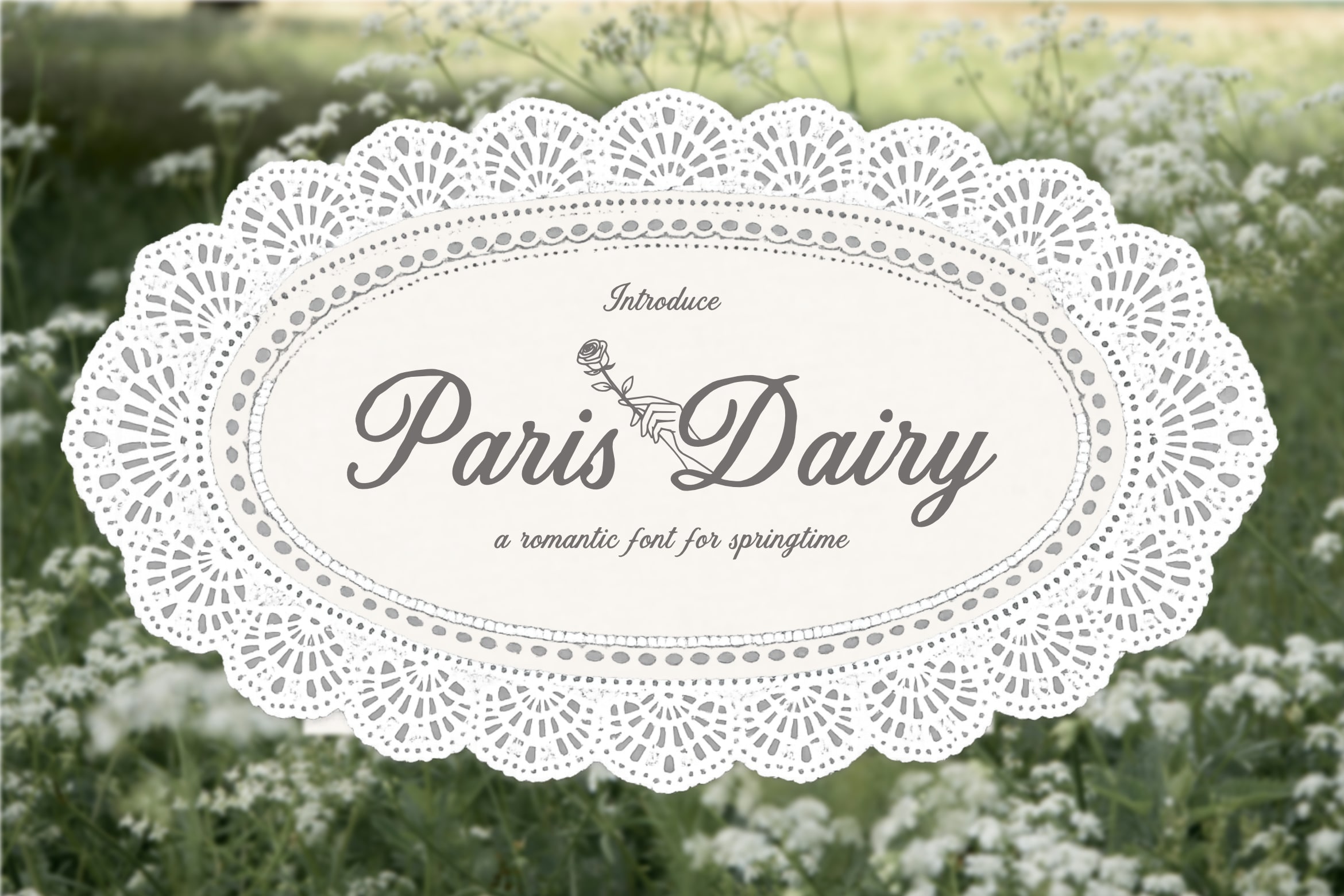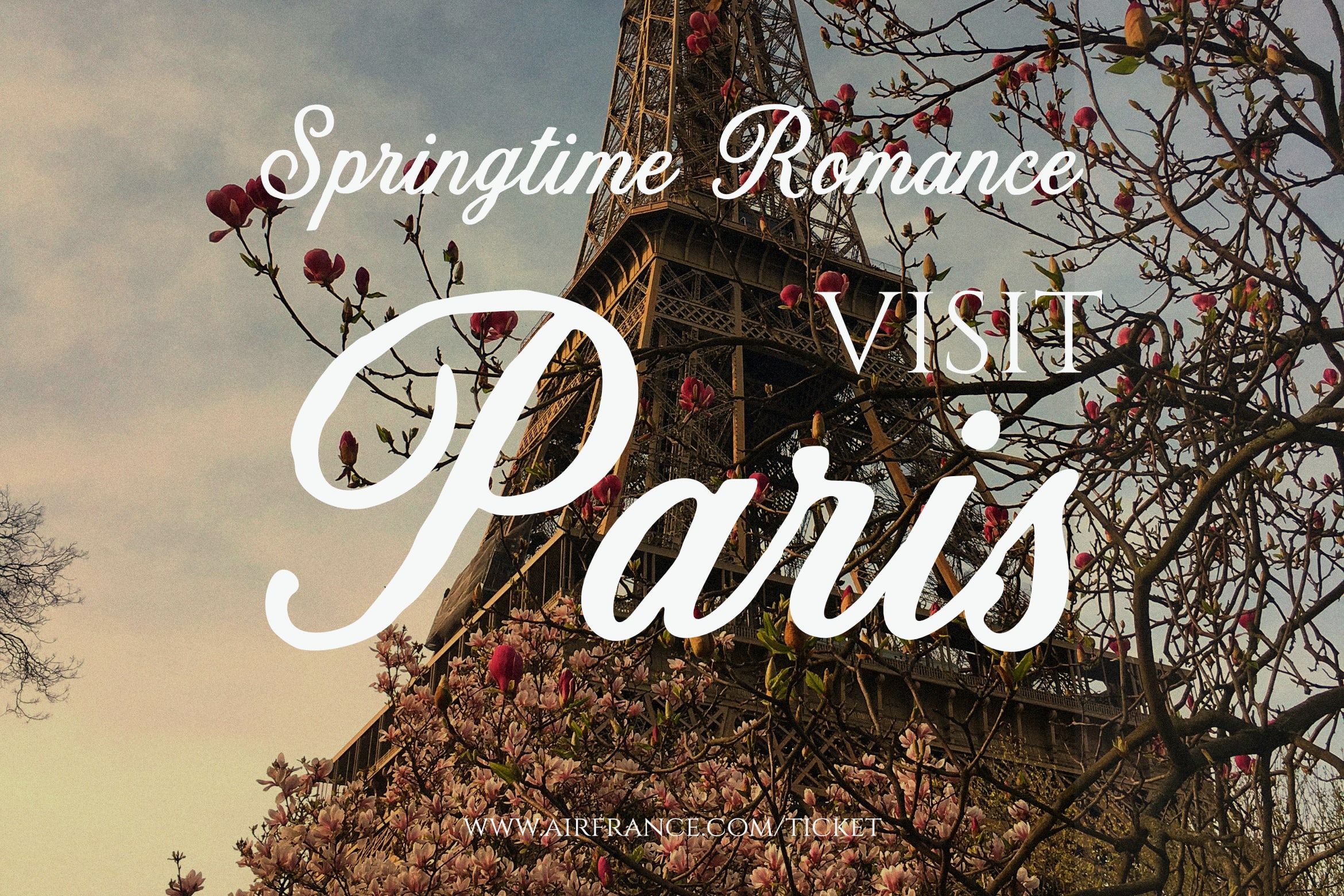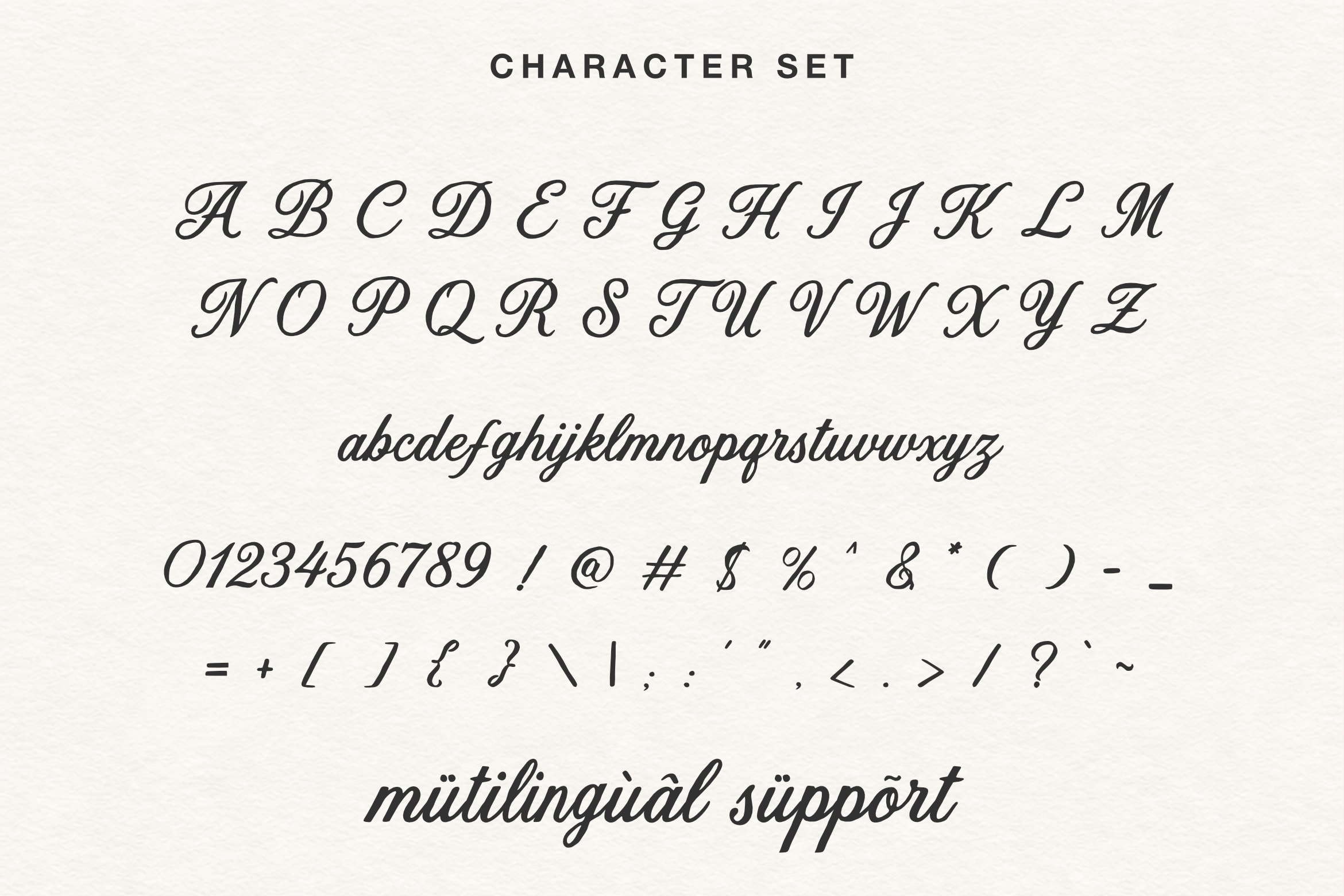
Perfect for wedding invitations, feminine branding, flower shops, beauty products, boutique packaging, greeting cards, social media content, editorial projects, and lifestyle brands, Paris Dairy creates a warm and memorable impression. Its handcrafted feel adds a touch of authenticity while maintaining the elegance needed for both personal and professional designs.
Alternate Characters
Ligatures & Stylistic Features
Multilingual Support